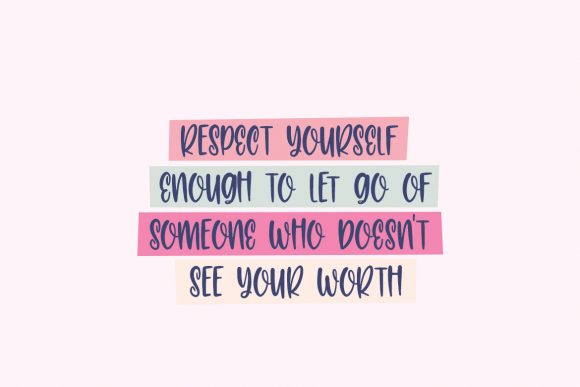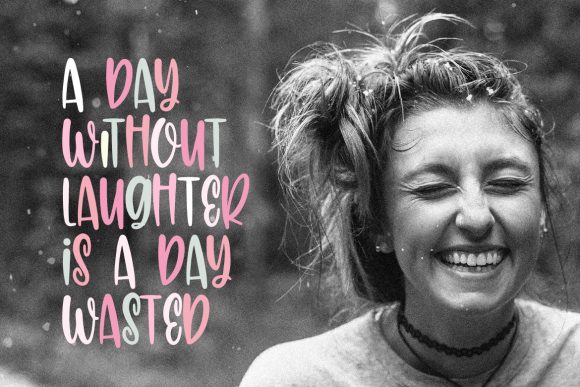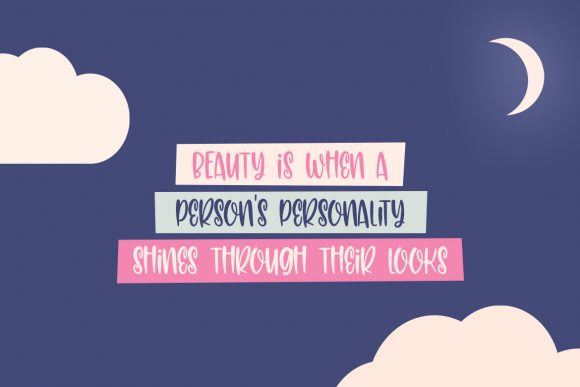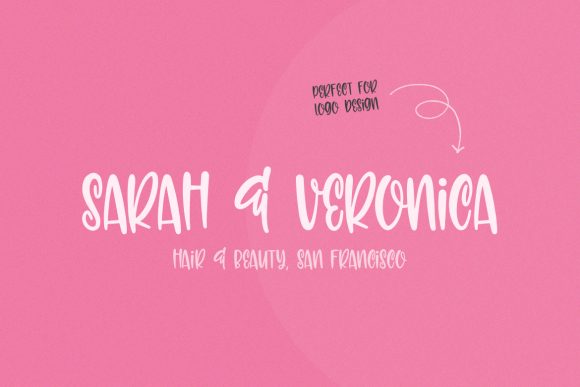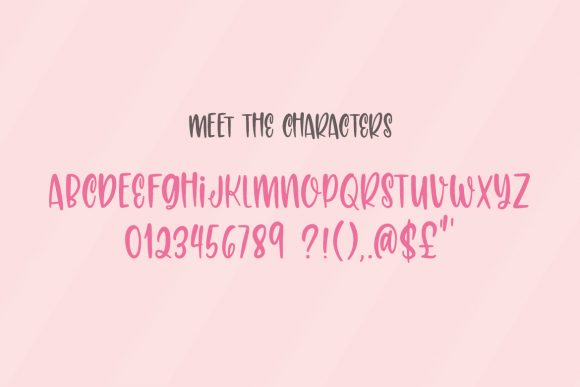
The Quest for the Perfect Font: How Carolina Stole My Heart
I’ll never forget the time I was working on a project for a client’s wedding invitation. I had the design all planned out, but I just couldn’t find the right font to bring it all together. The client wanted something that felt friendly, approachable, and elegant, but not too formal. I spent hours scouring the internet, trying out font after font, but nothing seemed quite right. That was until I stumbled upon Carolina.
Carolina is a cute and friendly handwritten font that has become a staple in my design toolkit. Featuring a curvy, readable, and down-to-earth style, this font has a way of making each of my designs look gorgeous. In this article, I’ll share my honest review of Carolina, a practical guide on how to use it, and some helpful tips and tricks.
My Honest Review of Carolina
- ✨ Curvy and playful: Carolina has a beautiful, flowing script that adds a touch of whimsy to any design.
- ✅ Readability: Despite its playful nature, Carolina is surprisingly readable, even at smaller font sizes.
- 💕 Elegant but not too formal: Carolina strikes the perfect balance between elegance and approachability, making it perfect for a wide range of design projects.
While Carolina is an amazing font, it’s not perfect. Here are a few things to keep in mind:
- 🤔 Limited character set: While Carolina has a wide range of characters, it’s not a full-featured font with every possible glyph.
- ⚠️ Not suitable for body text: While Carolina is readable, it’s still a script font and may not be the best choice for large blocks of body text.
One of the best things about Carolina is its OpenType features and glyphs. These allow you to add more personality and variety to your design. Here are a few tips for using OpenType features and glyphs:
- Use the Glyphs panel in Photoshop or Illustrator to access Carolina’s glyphs and stylistic alternates.
- Experiment with different ligatures and swashes to add more flair to your design.
- Take advantage of Carolina’s stylistic sets to create a unique look.
The Story Behind Carolina
Carolina was designed by a talented font designer who wanted to create a font that felt friendly and approachable. The designer drew inspiration from classic script fonts, but with a modern twist. The result is a font that’s both elegant and playful, perfect for a wide range of design projects.
Q: What is Carolina?
A: Carolina is a cute and friendly handwritten font featuring a curvy, readable, and down-to-earth style.
Q: Is Carolina suitable for body text?
A: While Carolina is readable, it’s still a script font and may not be the best choice for large blocks of body text.